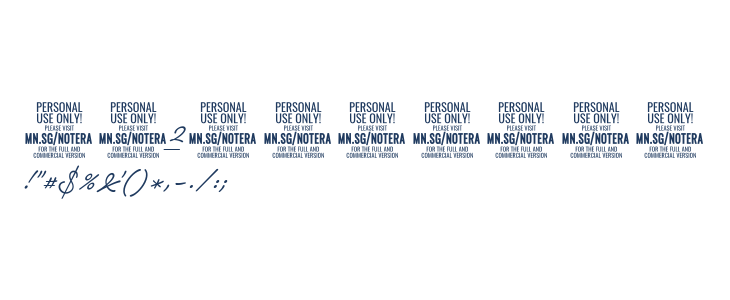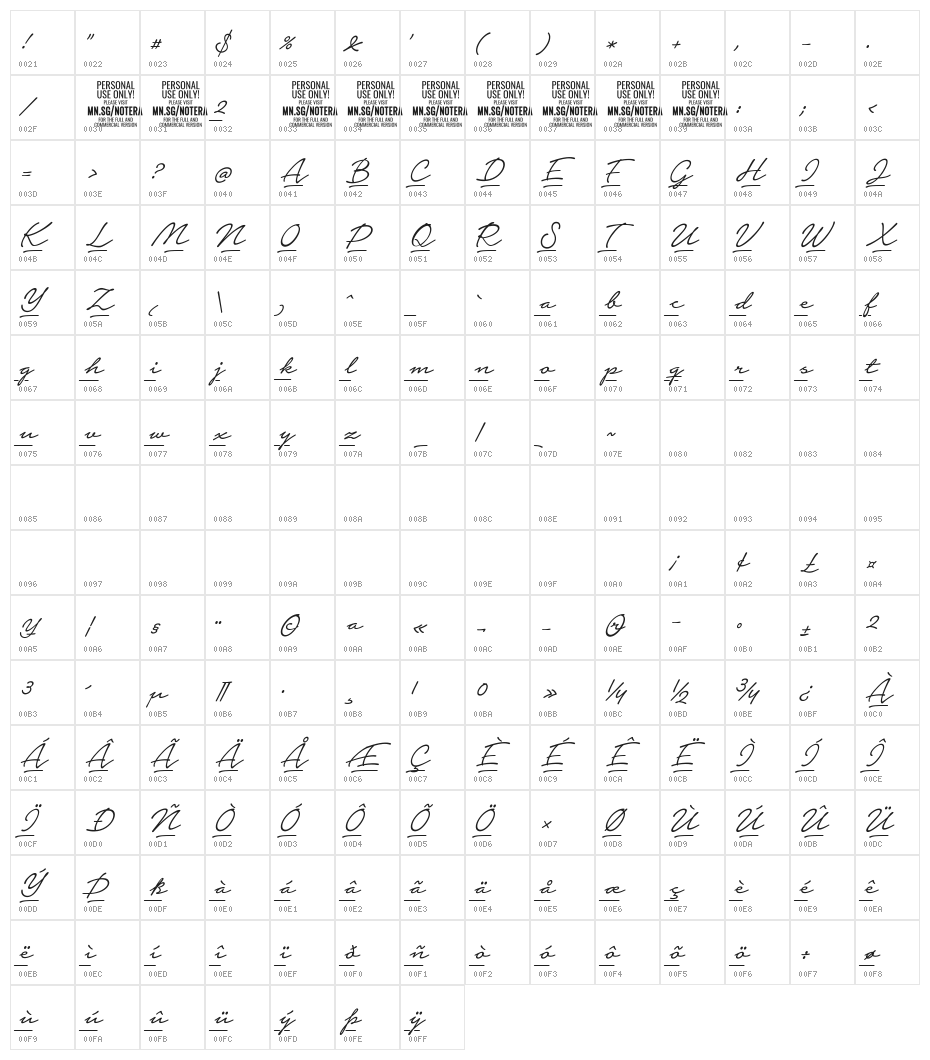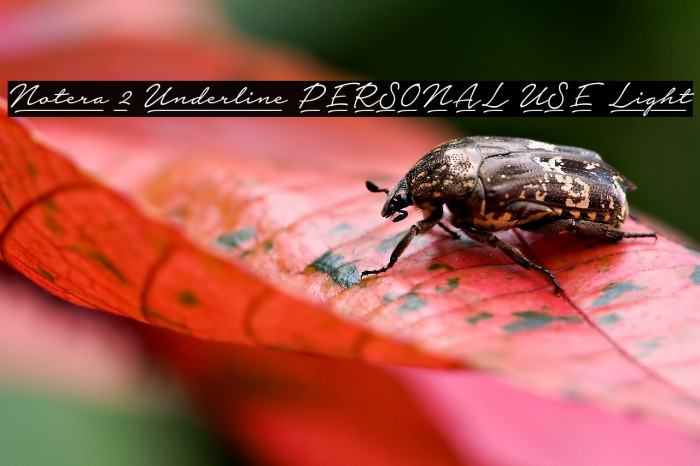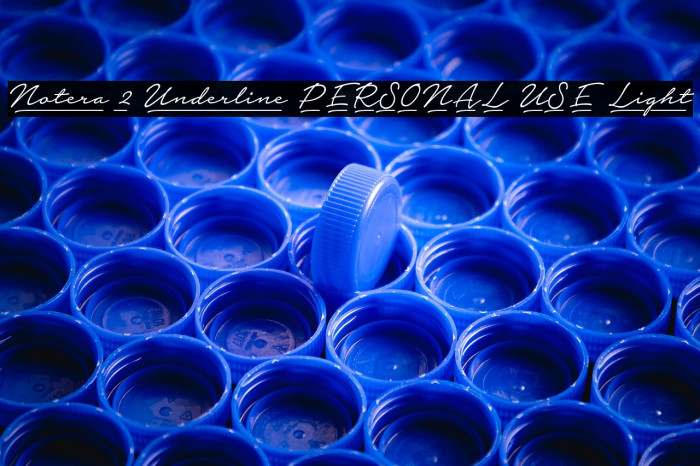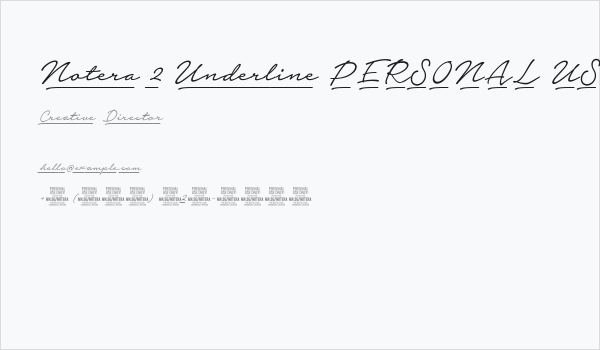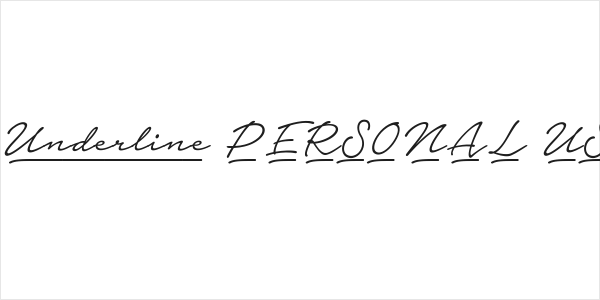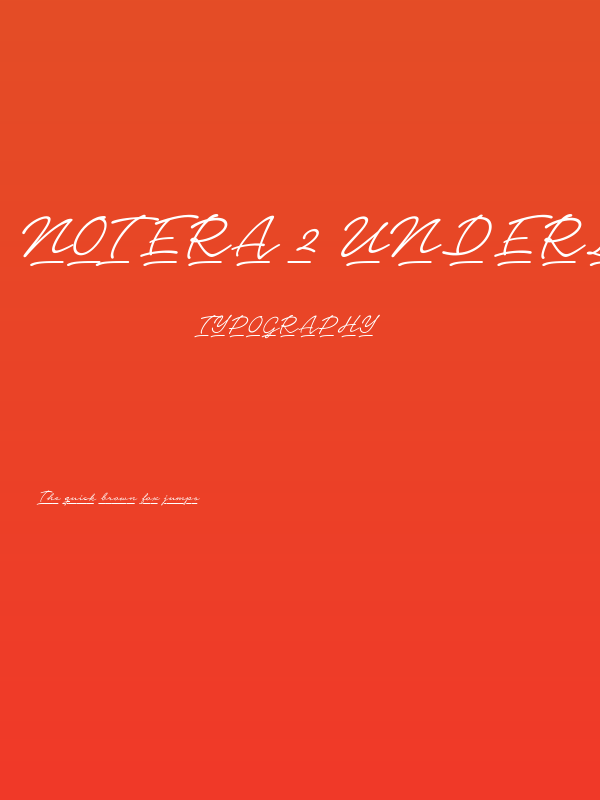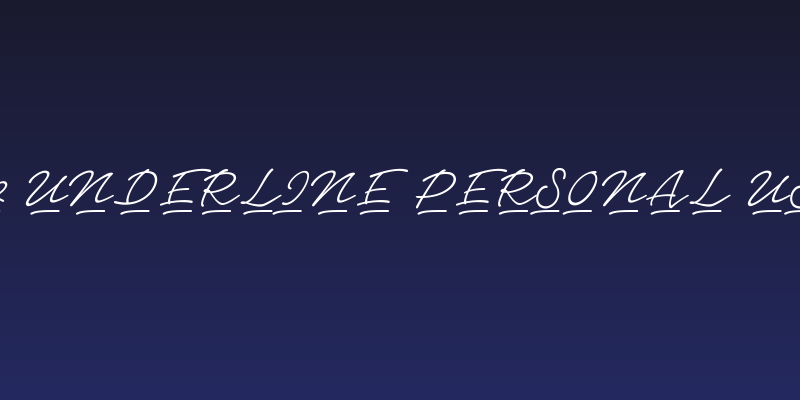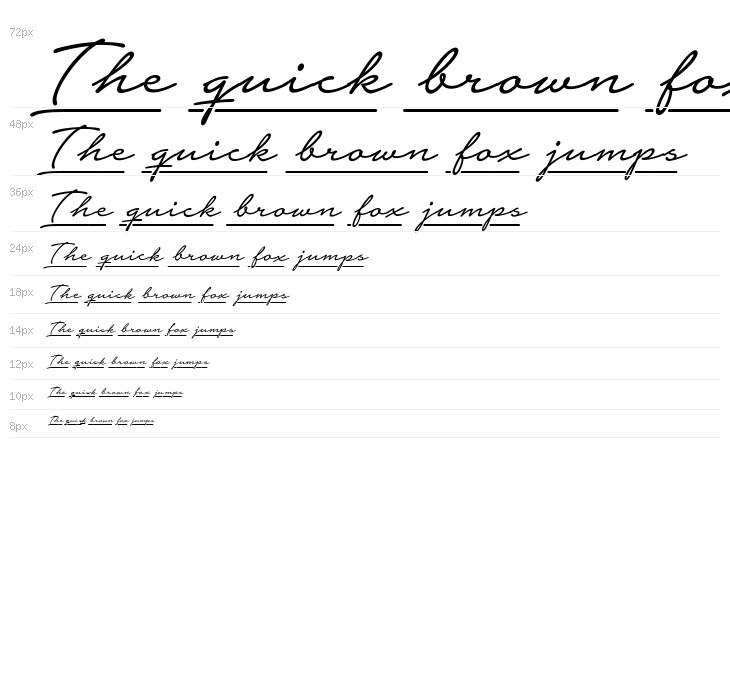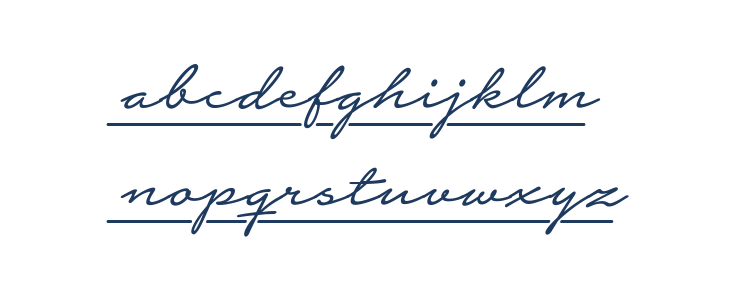
Notera 2 Underline PERSONAL USE Light Font
Notera 2 Underline PERSONAL USE Light Description
This font features a stylish, handwritten script with a distinct underline beneath each character, adding a unique flair. The uppercase and lowercase letters flow seamlessly, creating an elegant and cohesive look. The strokes are smooth and consistent, with a slight slant that enhances its handwritten appeal. The font includes a full set of uppercase and lowercase letters, numbers, and a variety of special characters, making it versatile for various design needs. Its light weight and delicate lines make it suitable for projects that require a touch of sophistication and personal charm.
| Overall Style | Elegant, Personal |
| Proposed Projects | Ideal for wedding invitations, personal branding, greeting cards, and elegant stationery. |